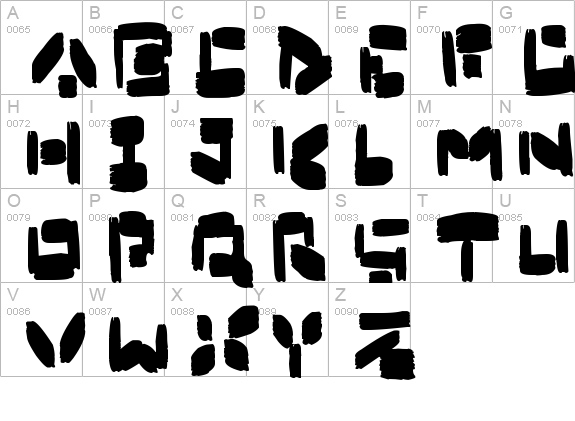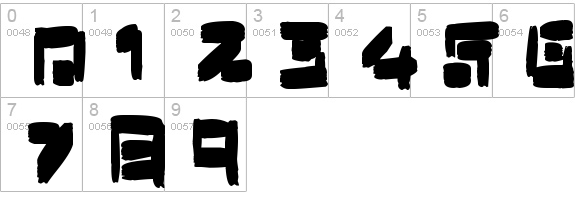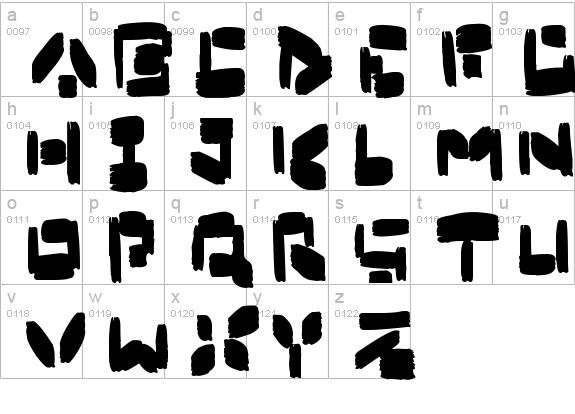
Boxybrush Font Details
Boxybrush is a free for personal use font in the Script > Brush category, designed by Darrell Flood. It has been downloaded 8 times and is available for Windows, Mac and Linux.
Boxybrush font is a unique and stylish typeface that combines the boldness of a brush stroke with the structured elements of a box. This font exudes creativity and modernity, making it a perfect choice for projects that require a touch of edginess and sophistication.